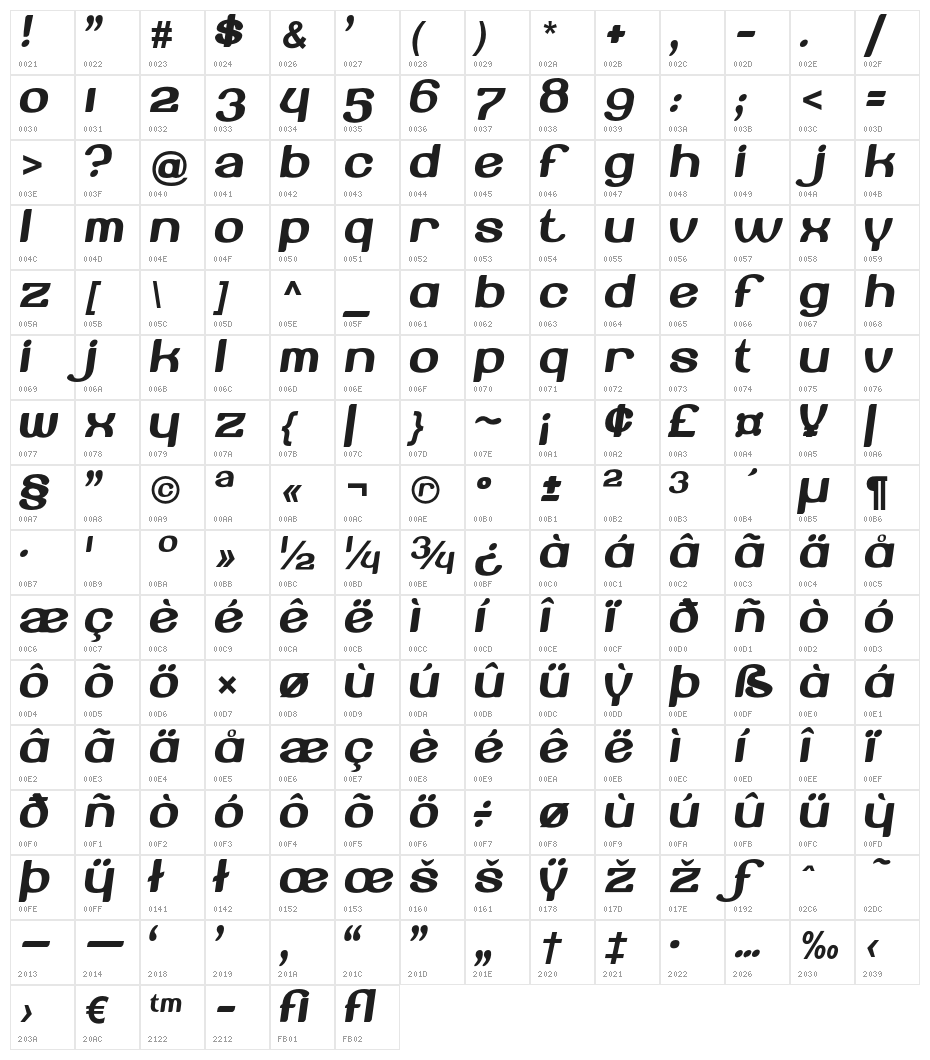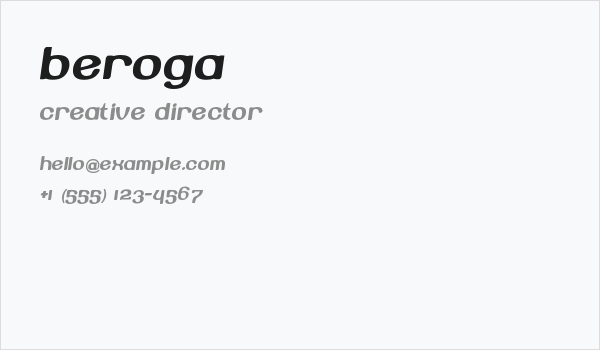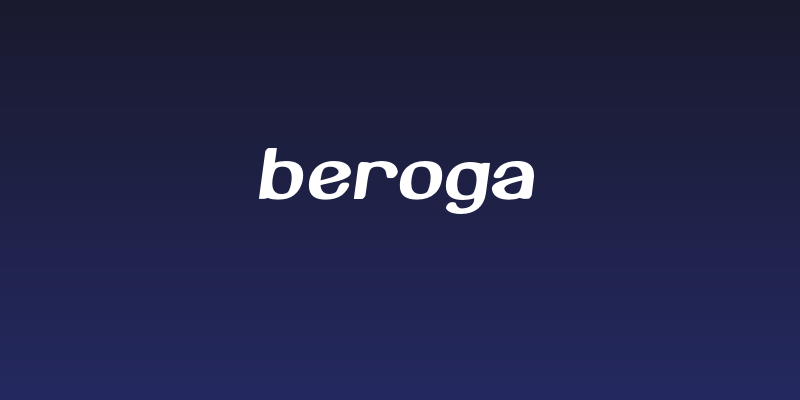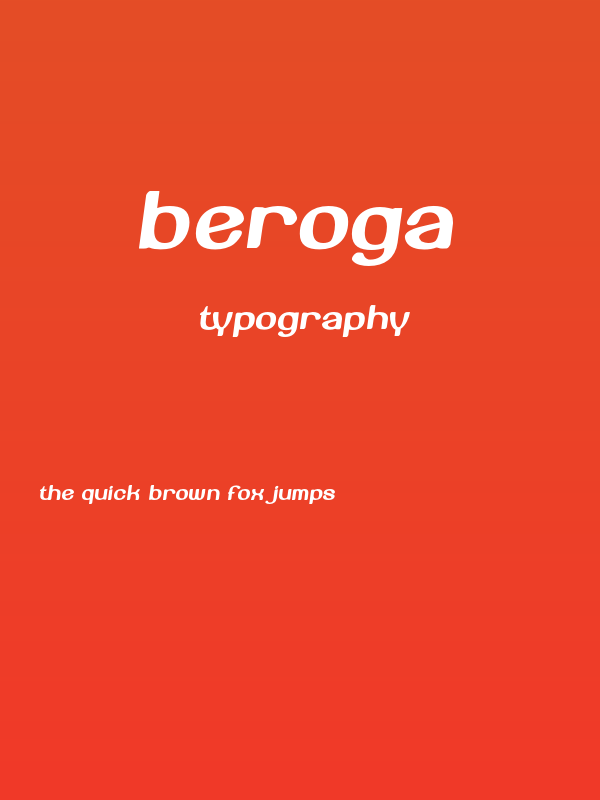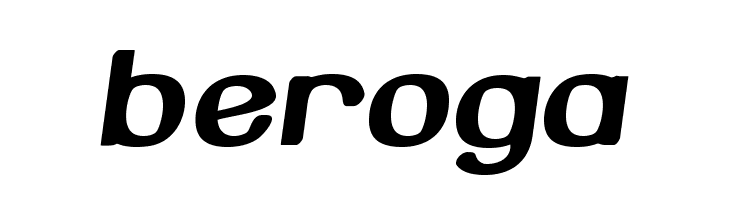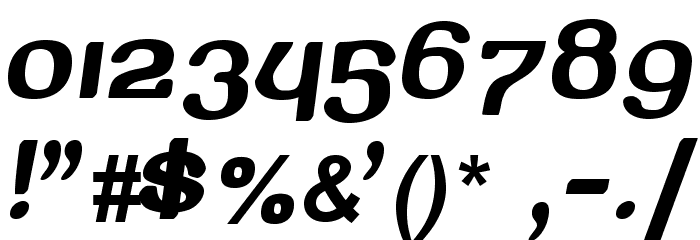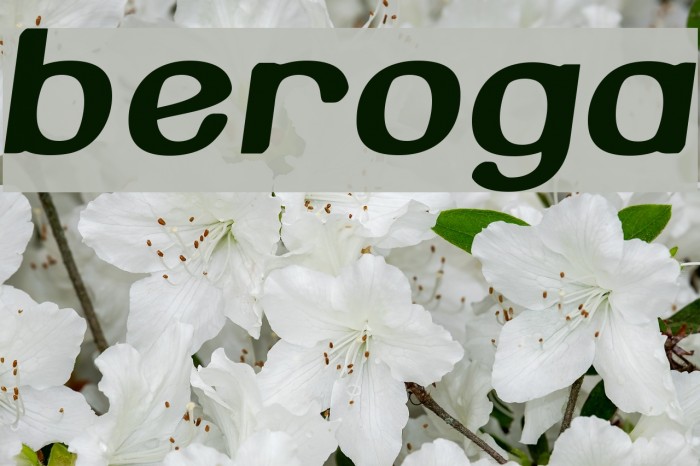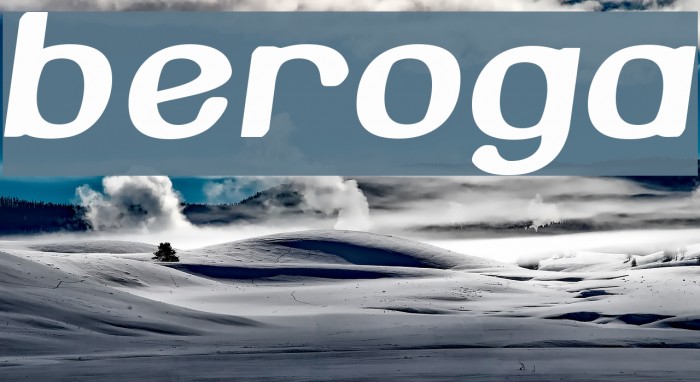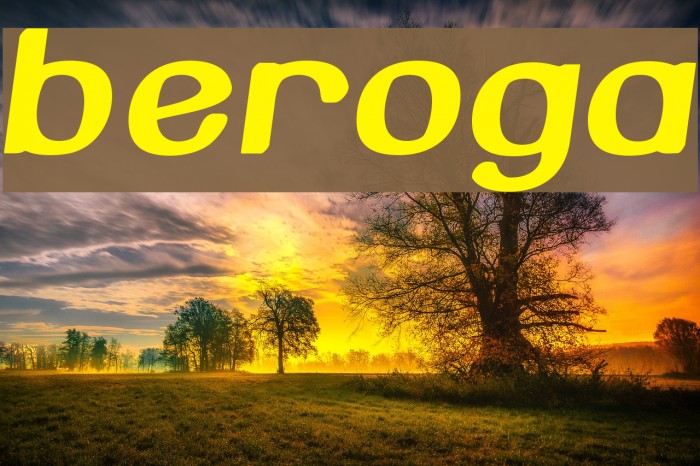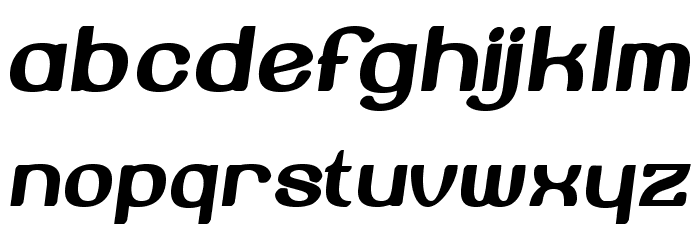
Beroga Font
Beroga Description
This font features a bold and dynamic style with a slightly slanted, italicized appearance. The characters are rounded and smooth, providing a sense of fluidity and motion. The uppercase and lowercase letters maintain a consistent style, with a slight emphasis on the curves and edges, giving it a modern and sleek look. The numerals are bold and clear, ensuring readability. Special characters are well-integrated, maintaining the overall aesthetic of the font. The design is versatile, suitable for various creative applications.
| Use Case | Headlines, Logos, Advertising |
| Proposed Projects | Ideal for branding, advertising, headlines, and digital media projects that require a modern and dynamic touch. |